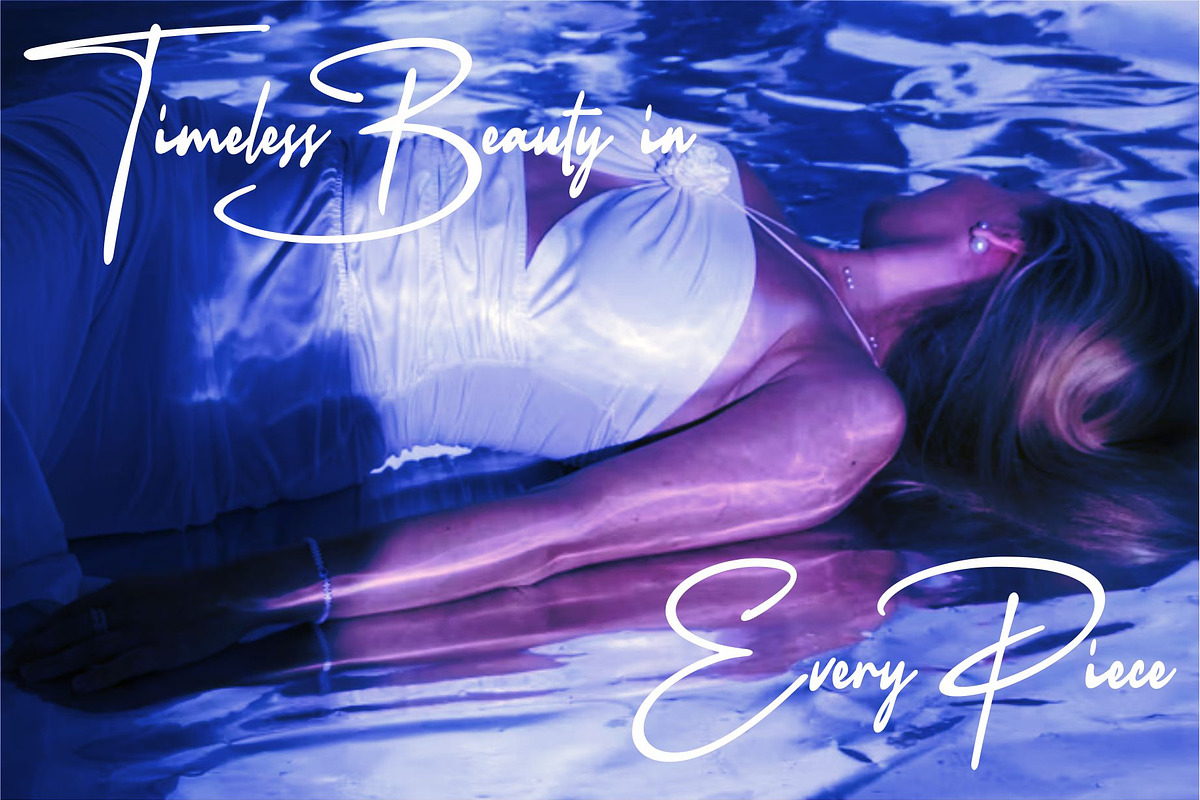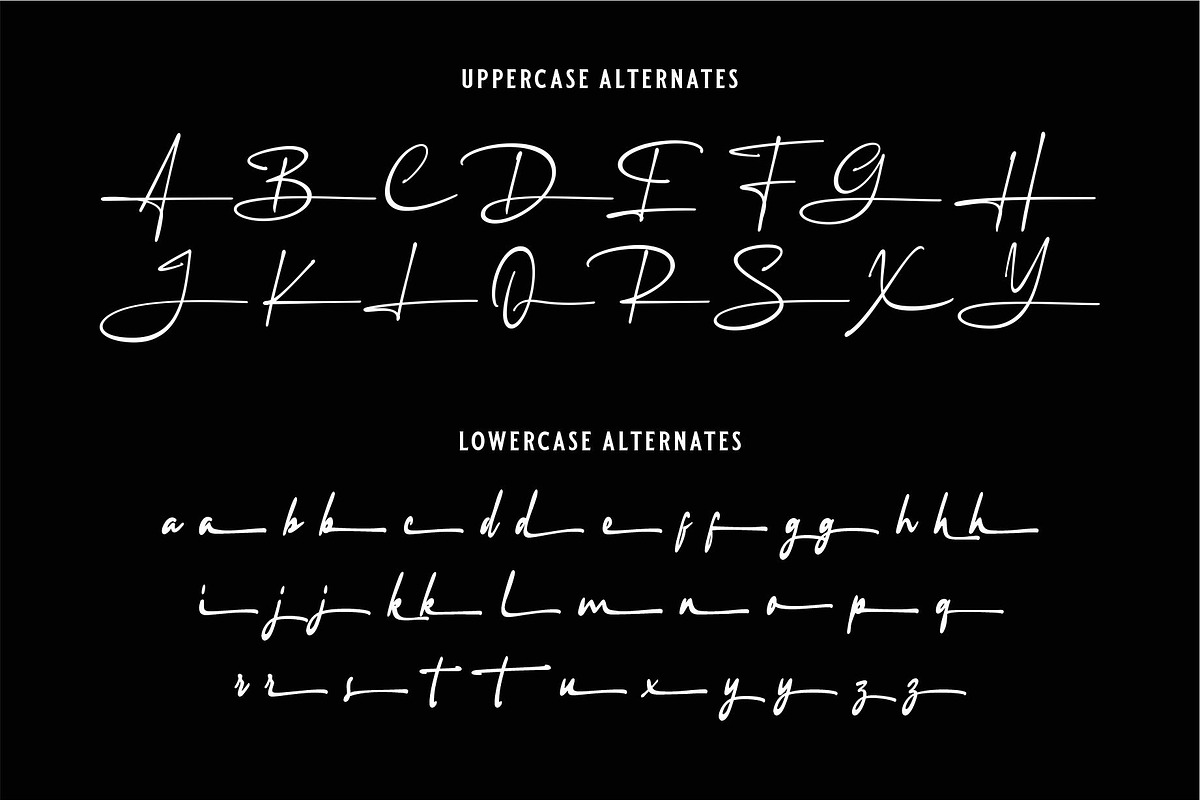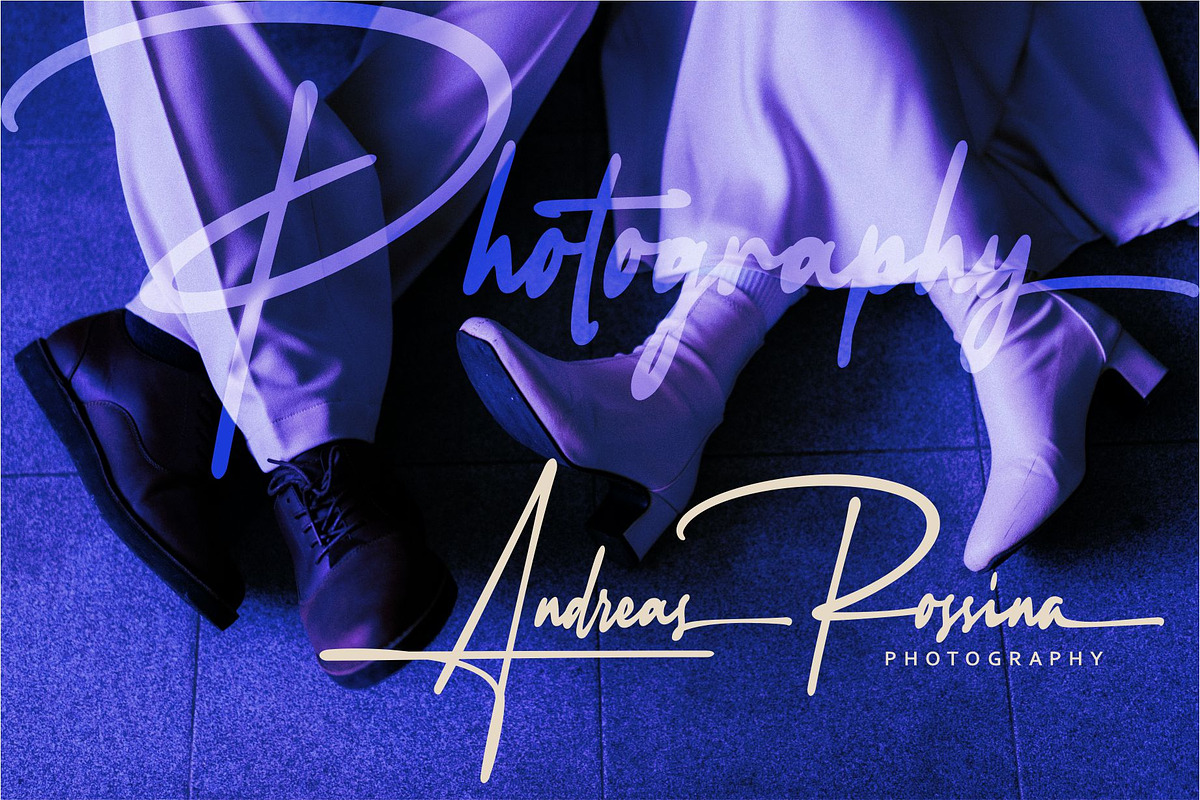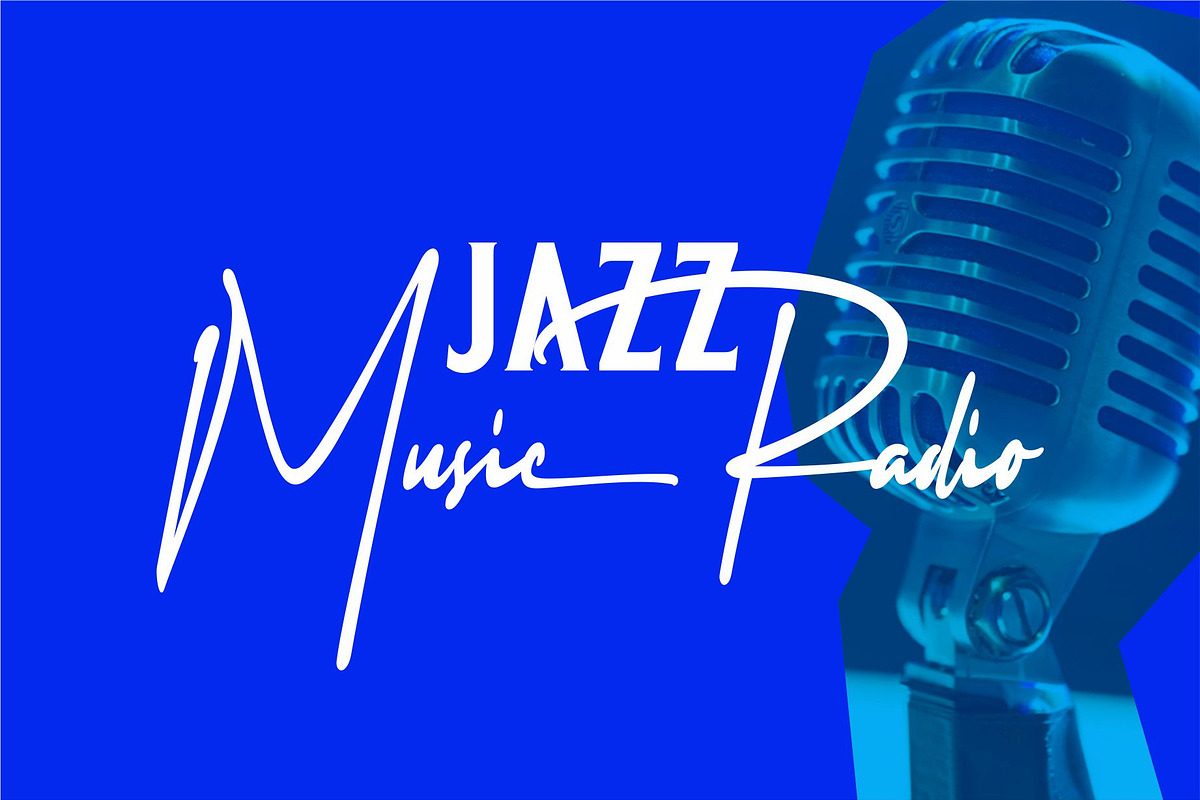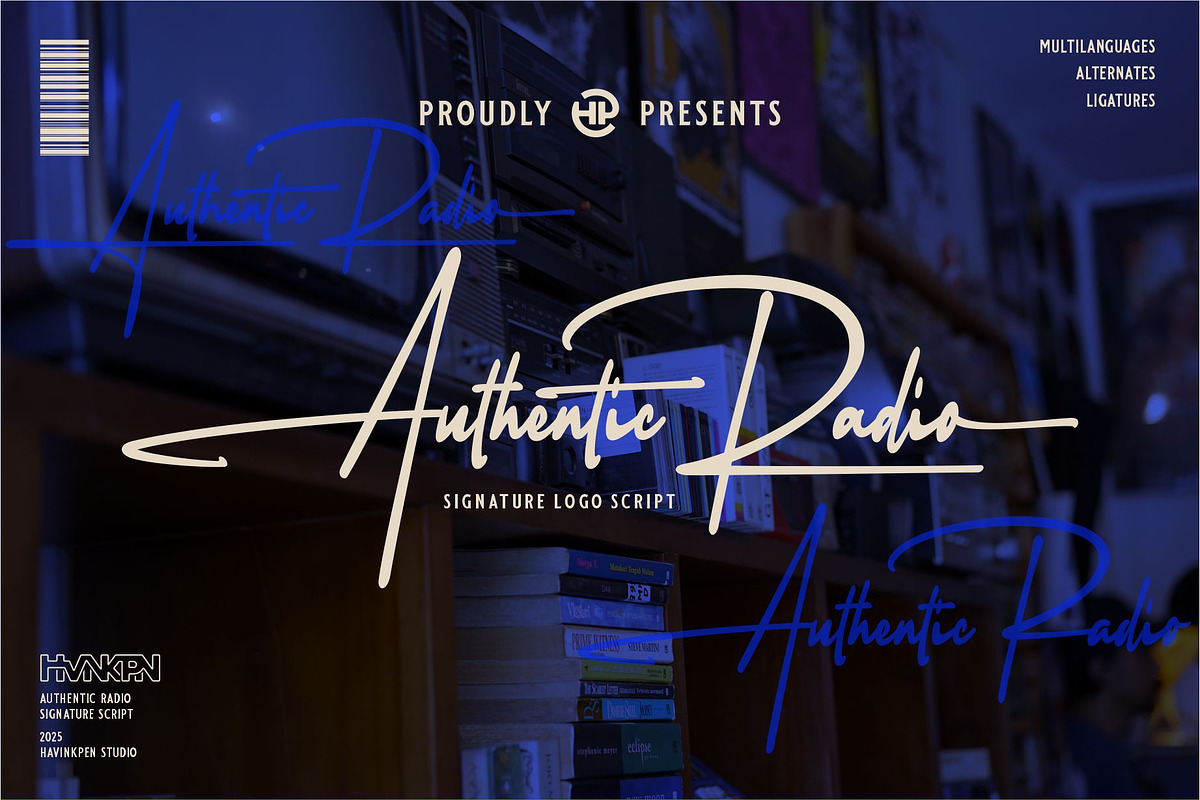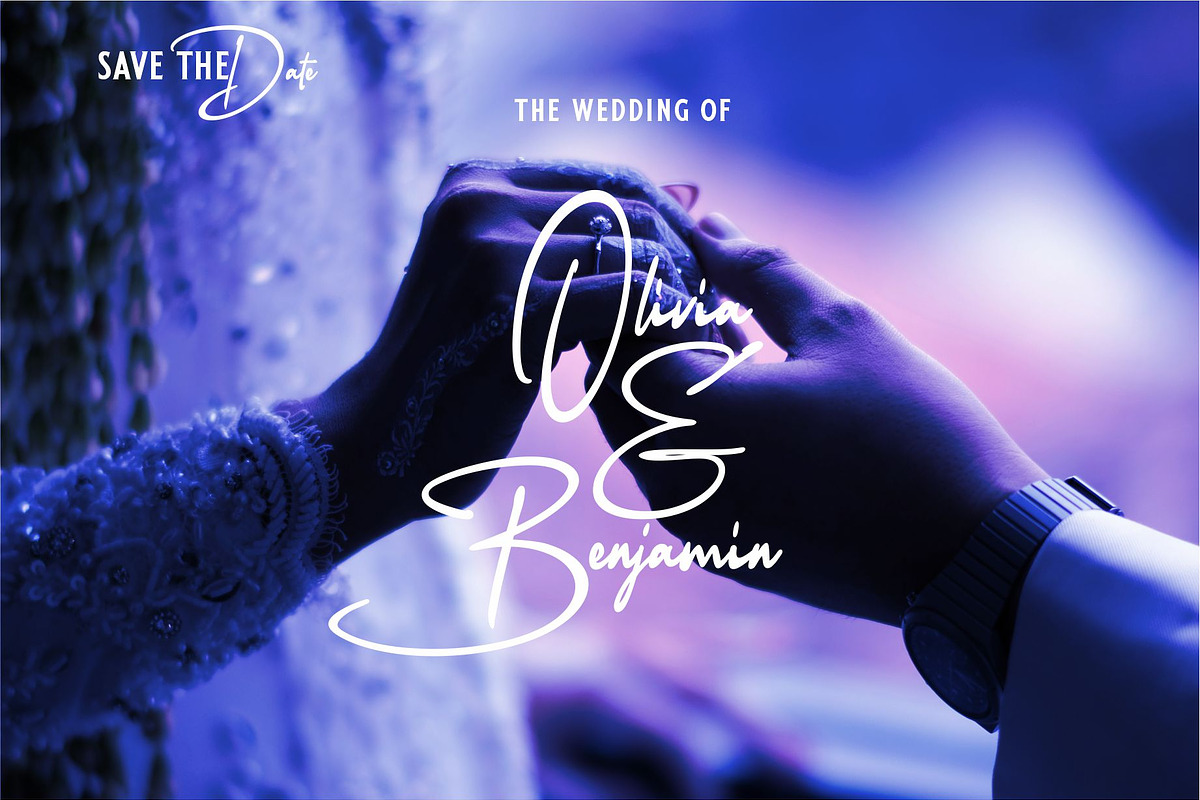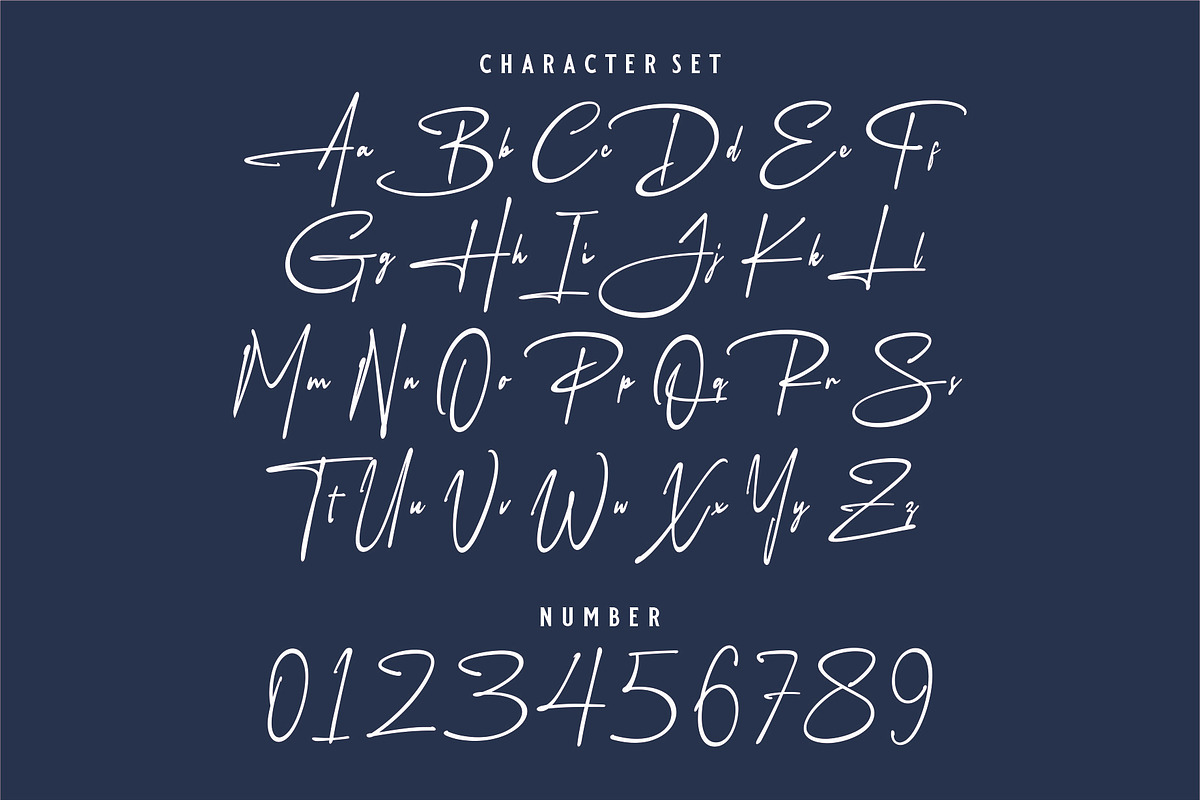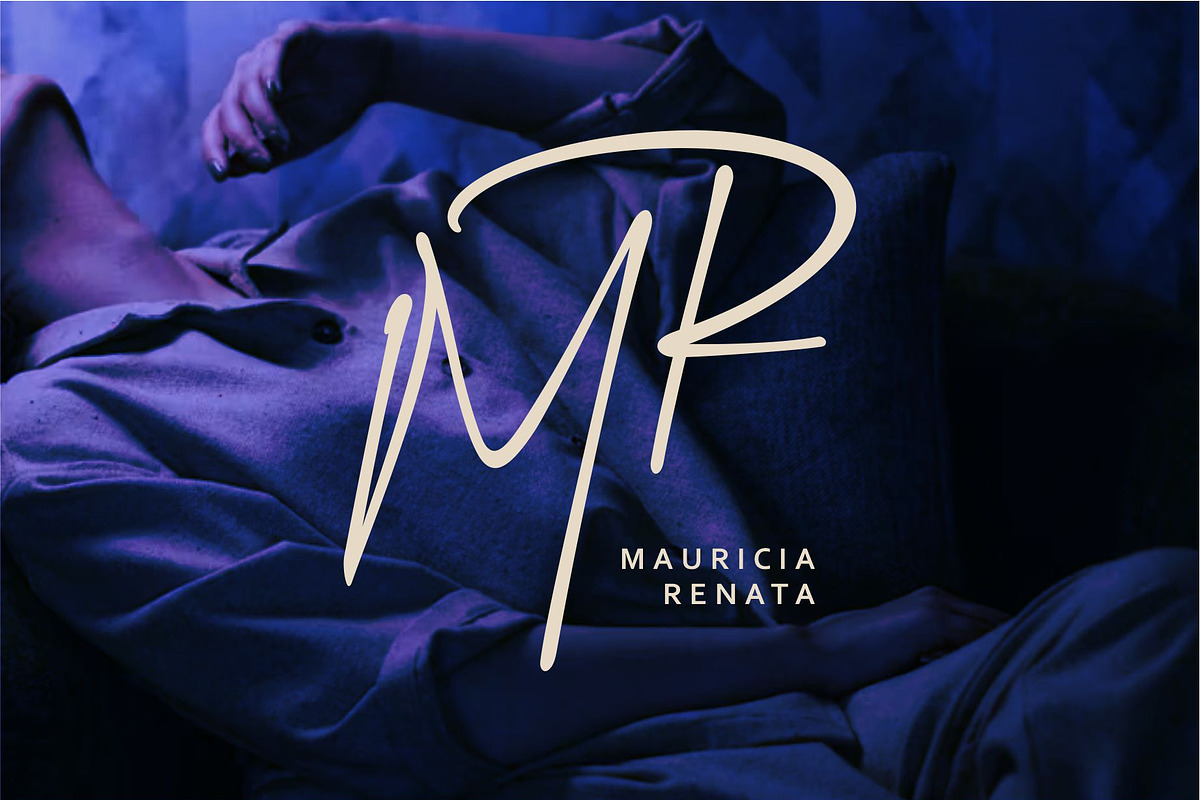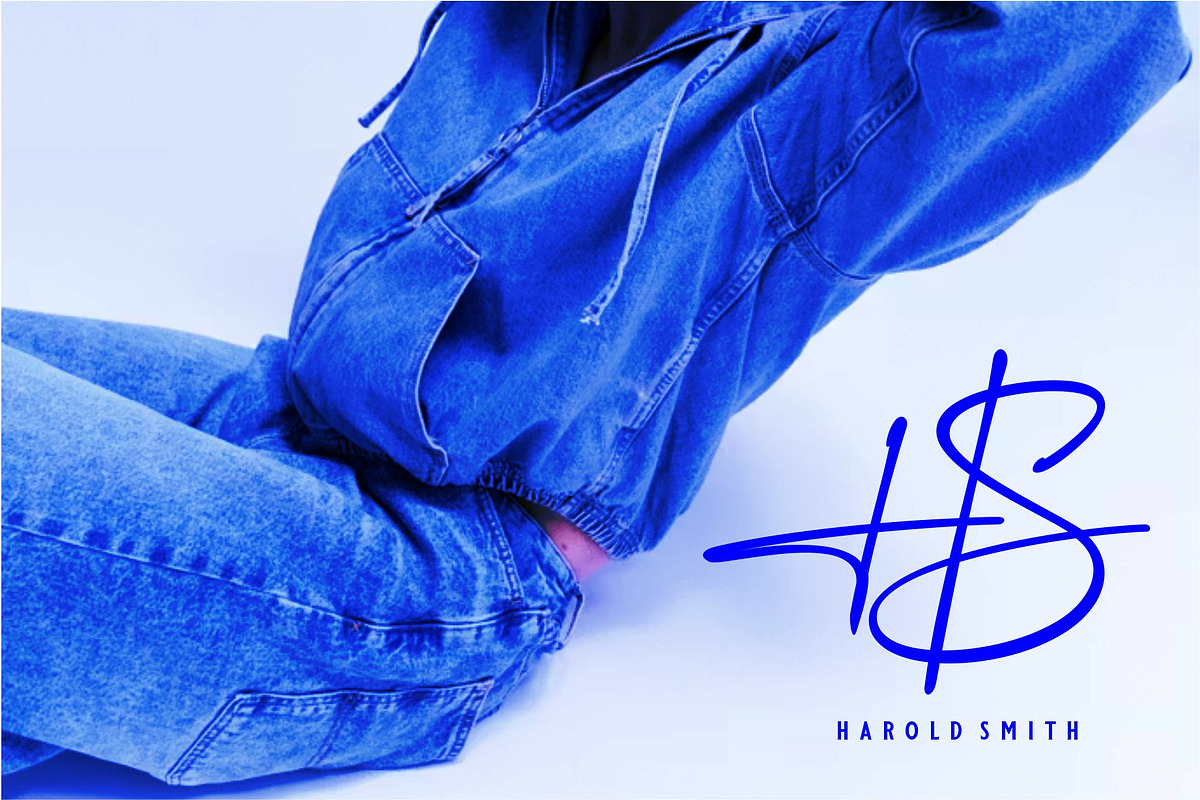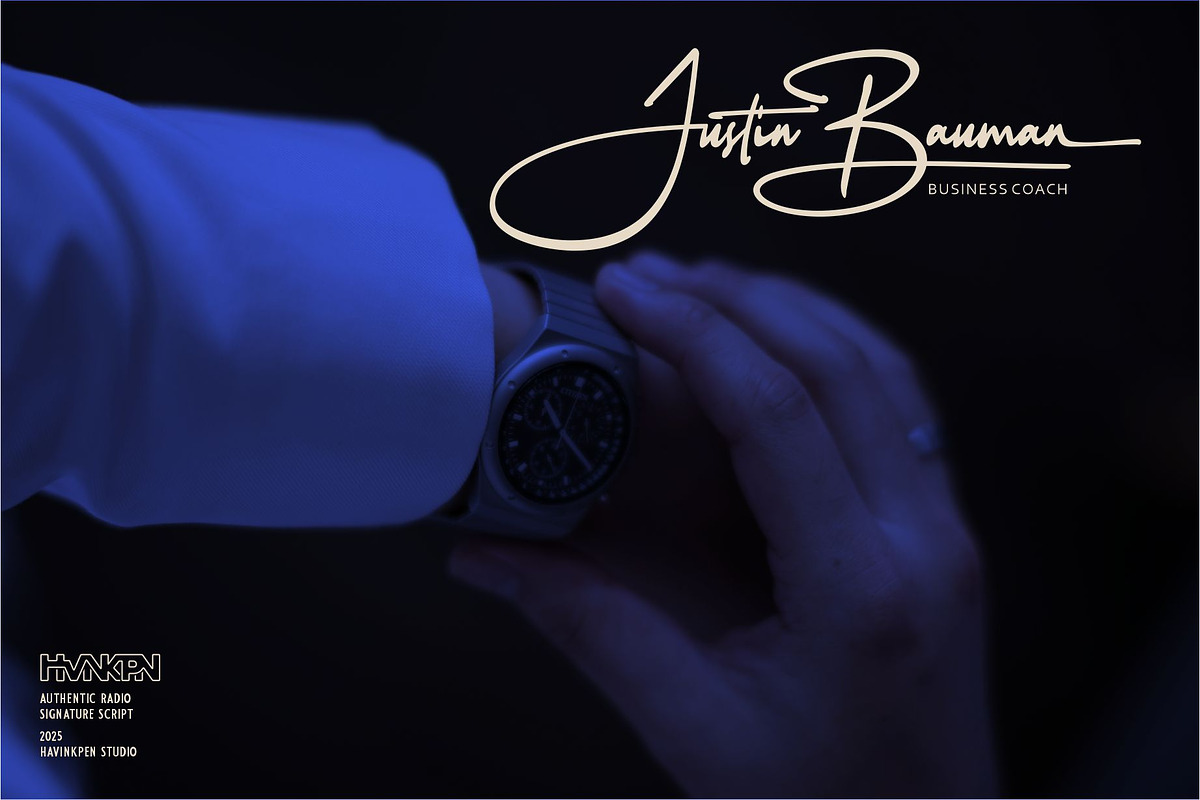
AUTHENTIC RADIO | Signature Logo
Authentic Radio is a modern handwritten signature logo script font crafted for professional branding and creative design. This font delivers a clean, natural handwriting style with smooth curves and confident strokes, making it ideal for designers who want an authentic and premium look.
Designed specifically for signature logos and watermark use, Authentic Radio helps brands stand out with a personal and elegant touch. Its versatile script style works seamlessly across digital and print projects, from logos and social media branding to photography watermarks and product packaging.
With multilingual support, alternates, and ligatures, this font allows you to create unique logo designs that feel custom and exclusive every time.